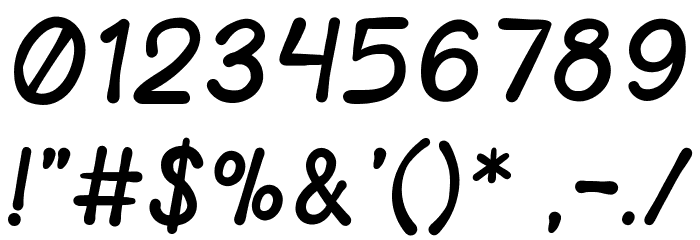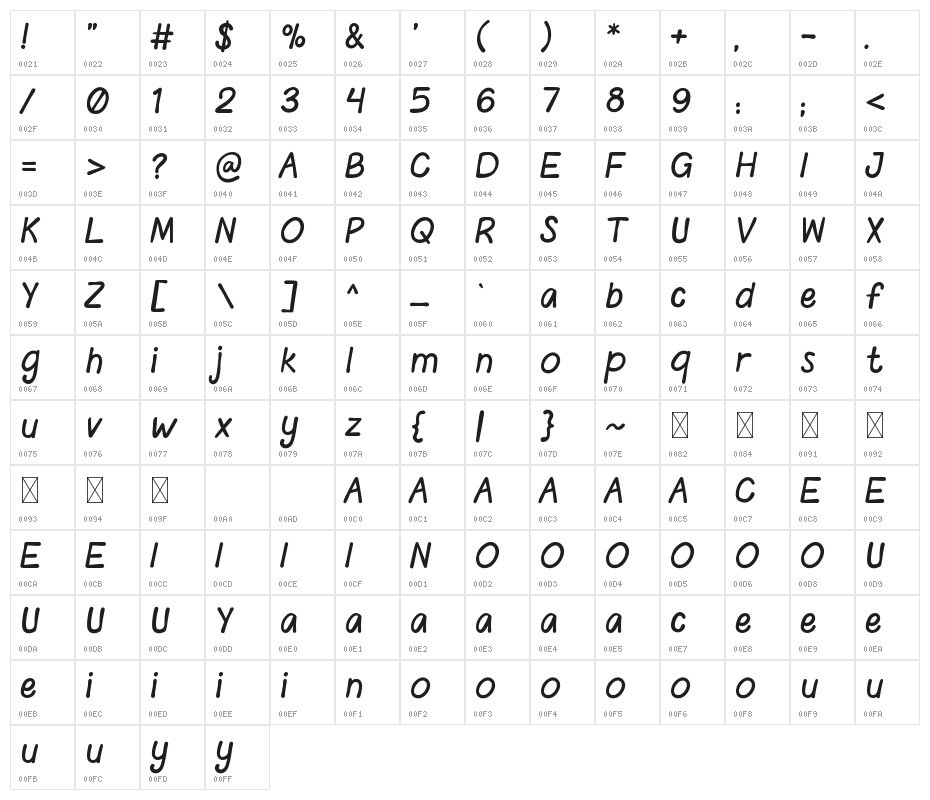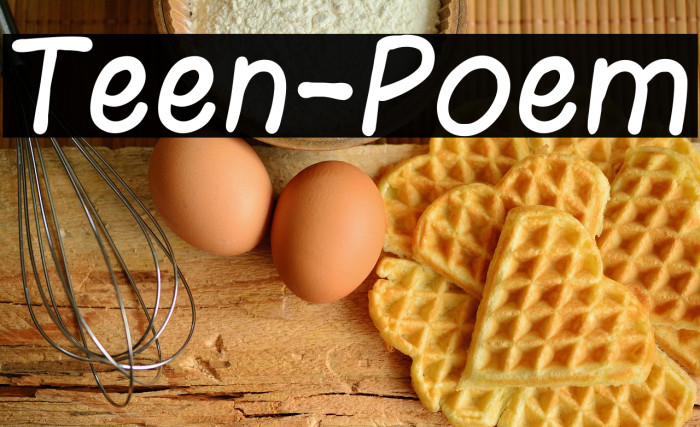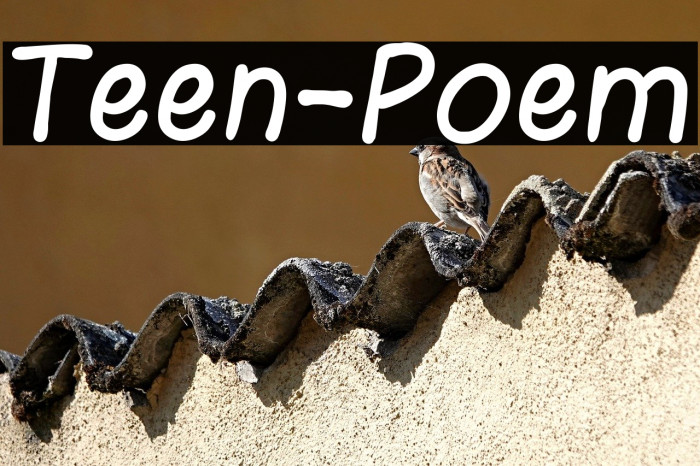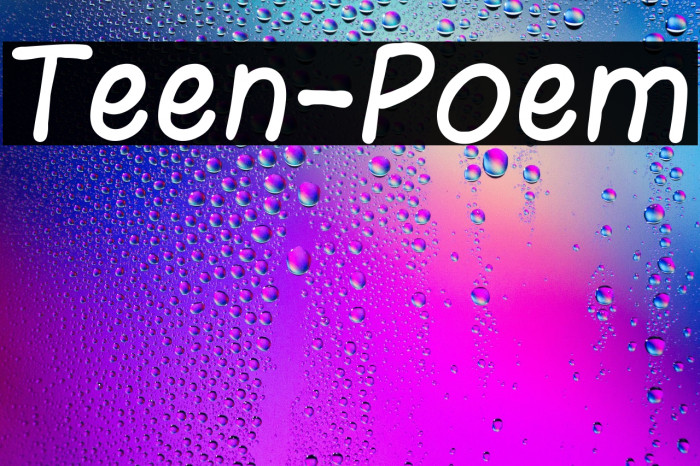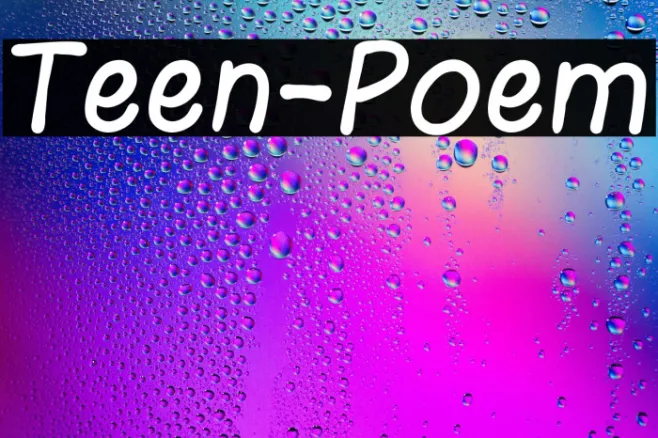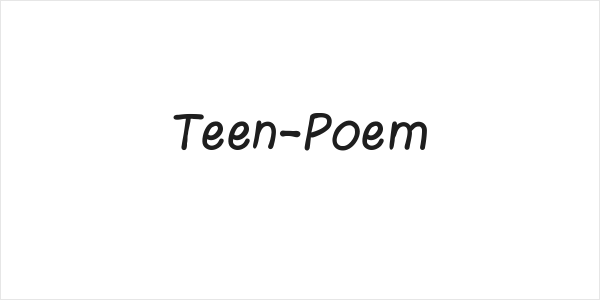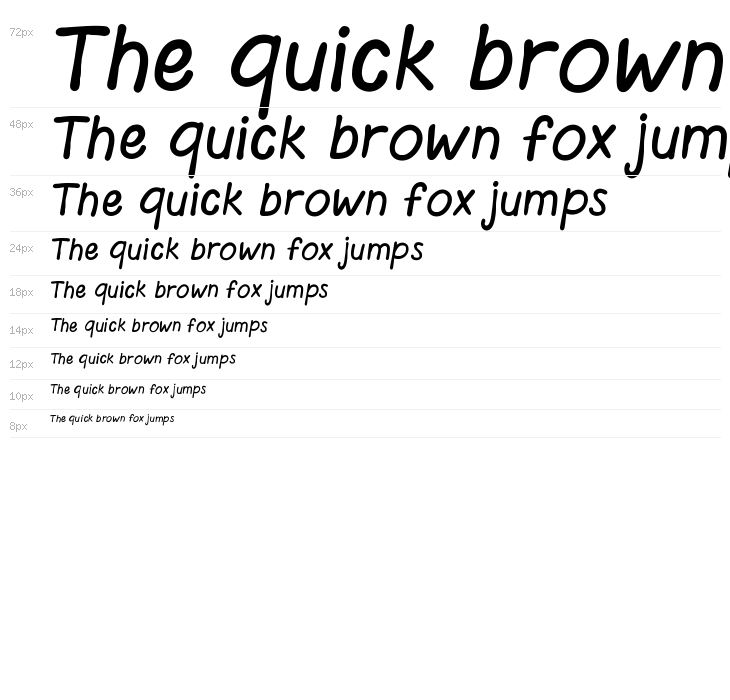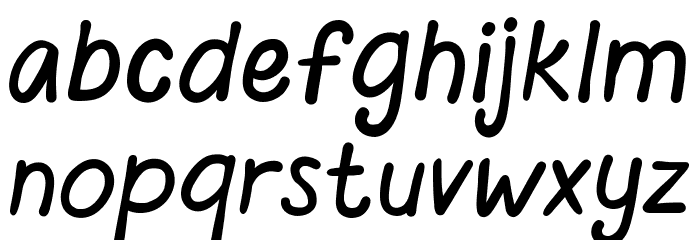
Teen-Poem Font
Teen-Poem Description
This font features a playful and casual handwritten style, characterized by smooth, rounded edges and a consistent stroke width. The letters are slightly slanted, giving it an informal and friendly appearance. The uppercase and lowercase letters are well-proportioned, maintaining a cohesive look across the alphabet. The numerals and special characters follow the same style, ensuring uniformity. This font's simplicity and readability make it suitable for a variety of uses, while its unique handwritten touch adds a personal feel.
| Use Case | Headlines, Informal text, Personal projects |
| Proposed Projects | Ideal for greeting cards, children's books, personal blogs, and informal branding. |